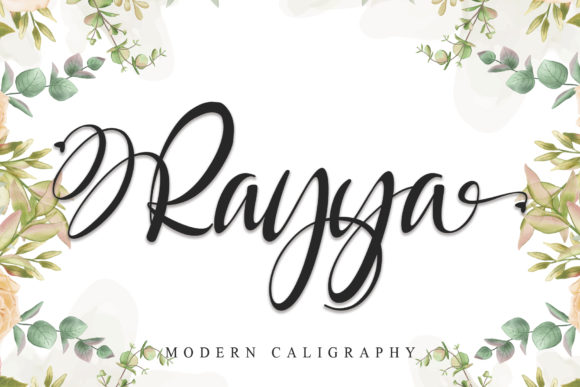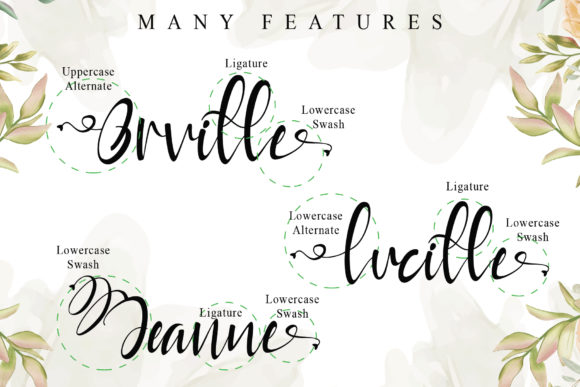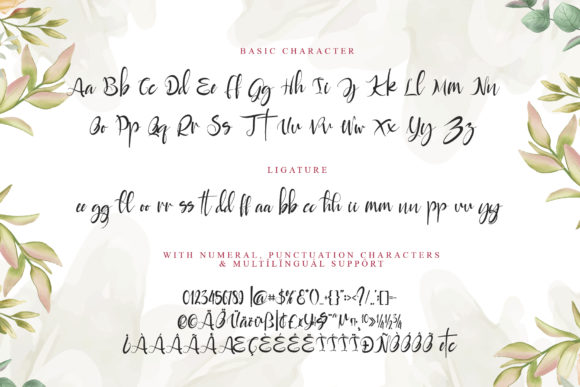
About Rayya Font
Rayya is a modern calligraphy font carefully created with a touch of elegance. It features amazing swashes and ligatures that make the script incredibly versatile. Whether you’re looking for fonts for Instagram or calligraphy scripts for DIY projects, Saylina will turn any creative idea into a true piece of art!